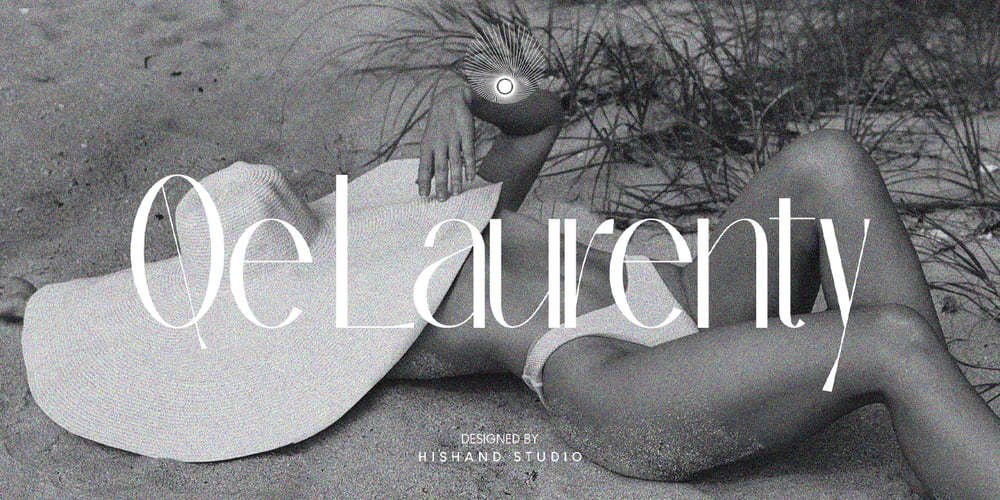
Qe Laurenty Font Family was designed by Putu Dody Permana and published by Hishand Studio. Qe Laurenty contains 3 styles and family package options. The newly released Qe Laurenty sans serif font exudes an air of timeless sophistication and elegance. Its clean lines and precise geometry make it a truly classy choice for any design project. Qe Laurenty’s refined curves and delicate letterforms add a touch of luxury to any typographic composition. This font’s exquisite detailing and balanced proportions make it perfect for creating elegant branding materials. Complete with ligatures alternates regular italic icon kerning multilingual support